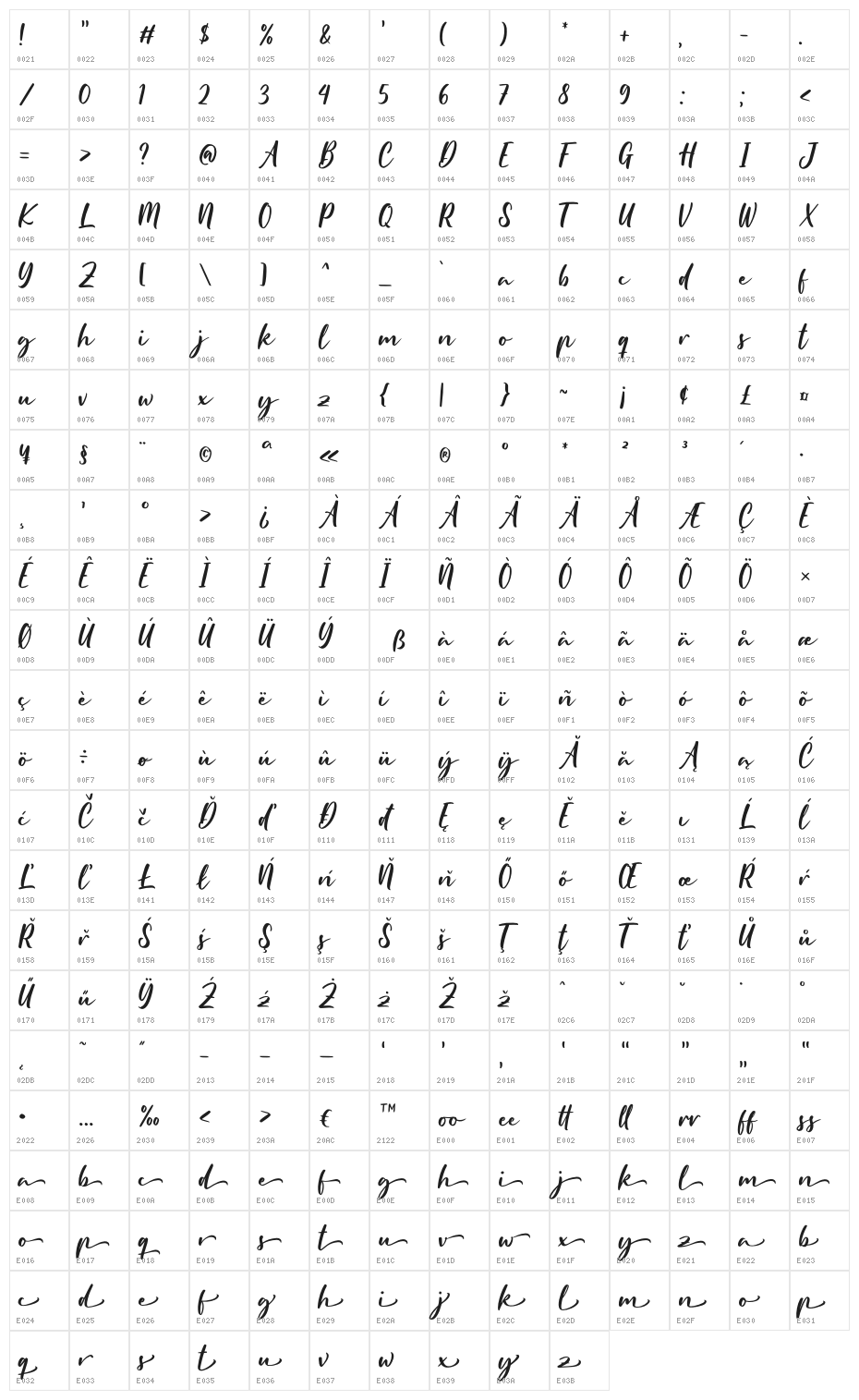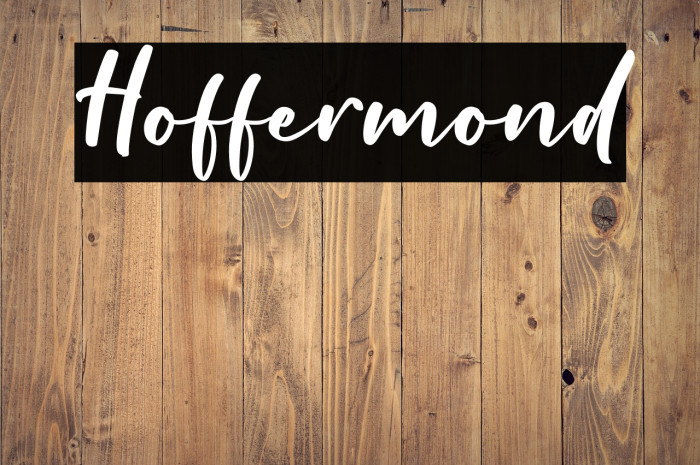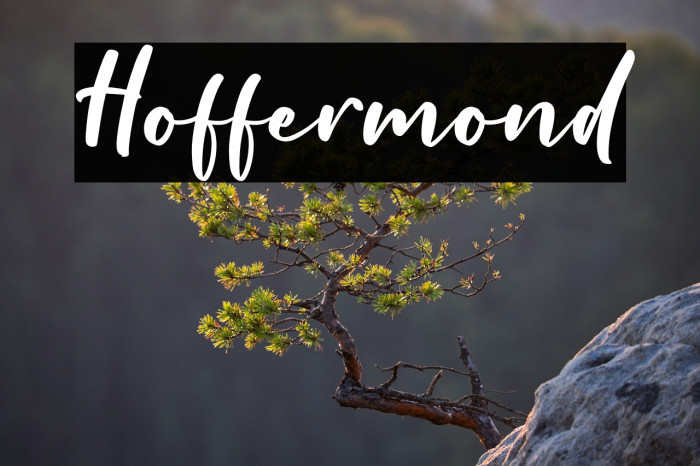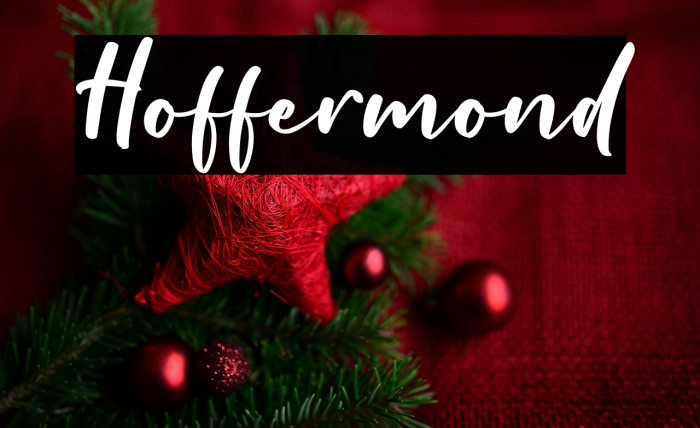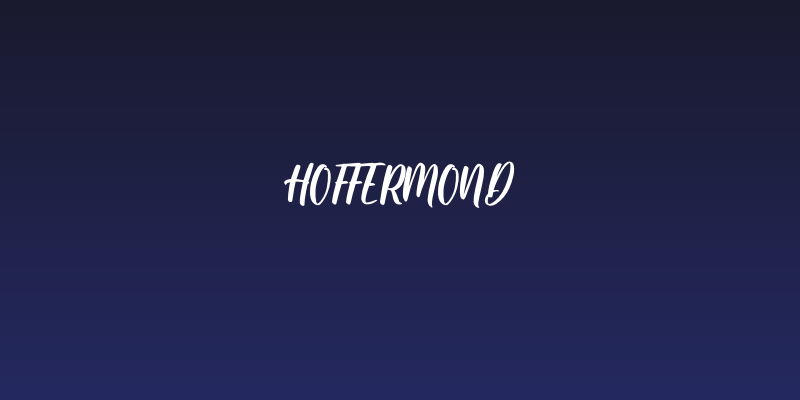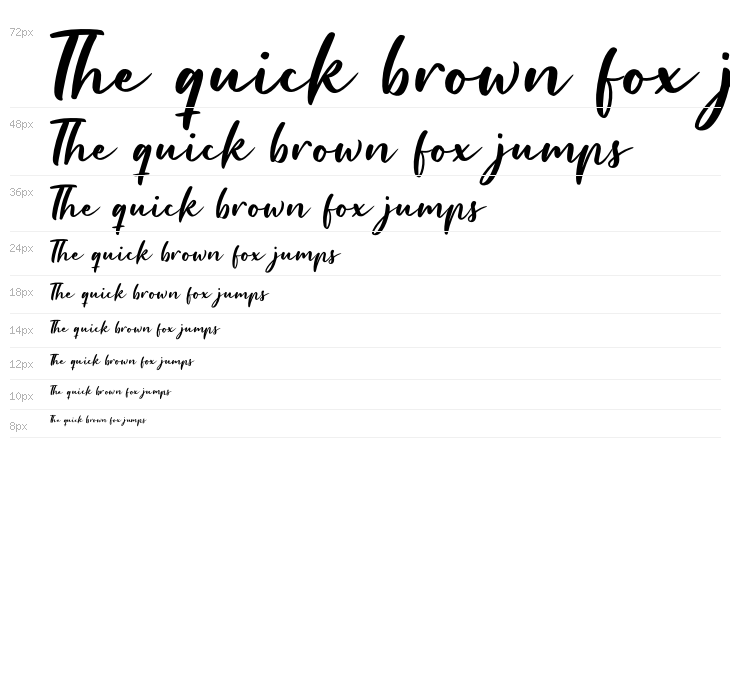
Hoffermond Font
Hoffermond Description
This font features a lively and expressive script style with a handwritten appearance. The letters are connected, giving it a fluid and dynamic look. The strokes are bold and consistent, with a slight slant that adds to its casual elegance. The uppercase letters are tall and prominent, while the lowercase letters maintain a smooth flow. The numerals and special characters are designed to match the overall style, ensuring a cohesive look across all text. This font is perfect for projects that require a personal touch or a creative flair.